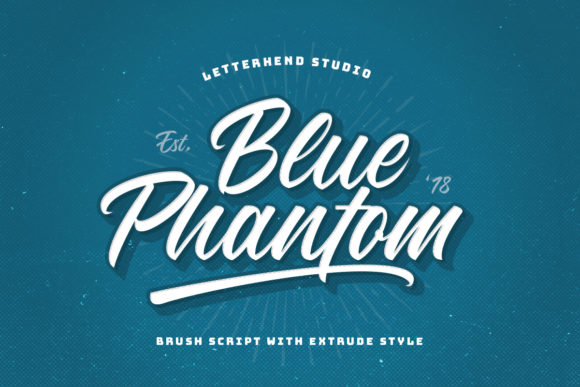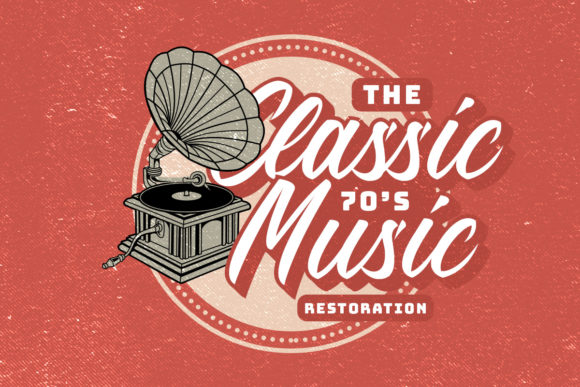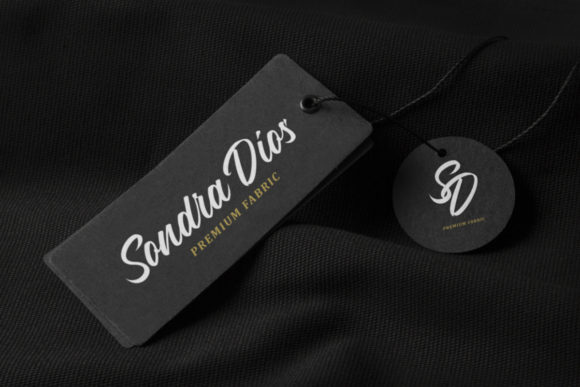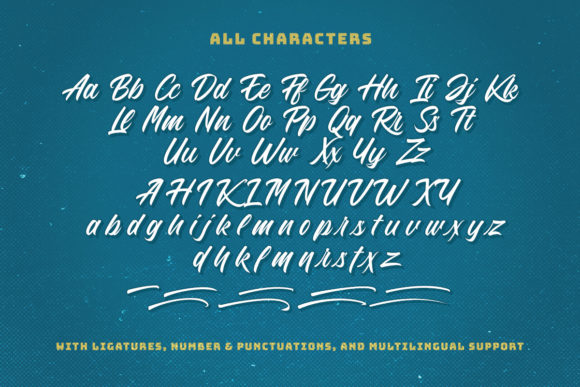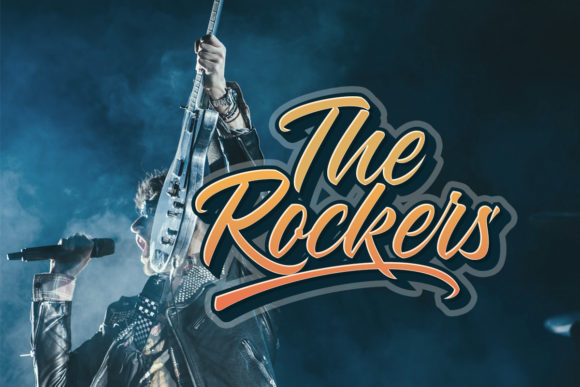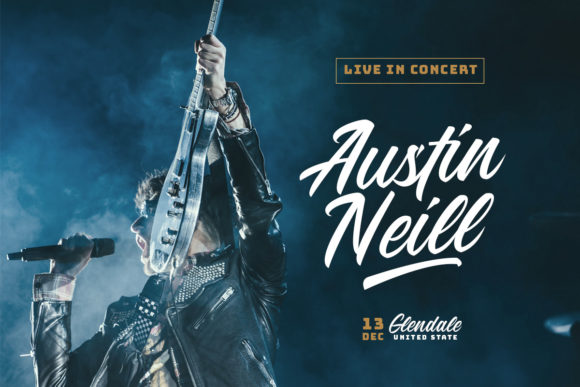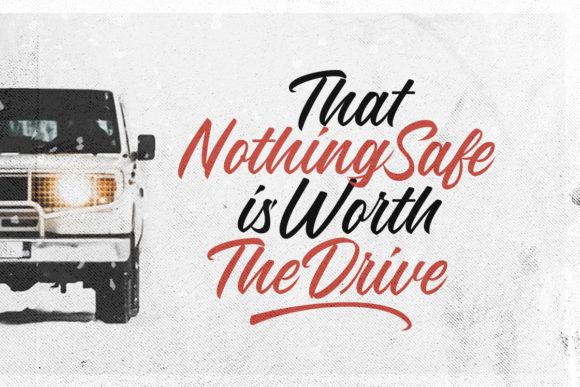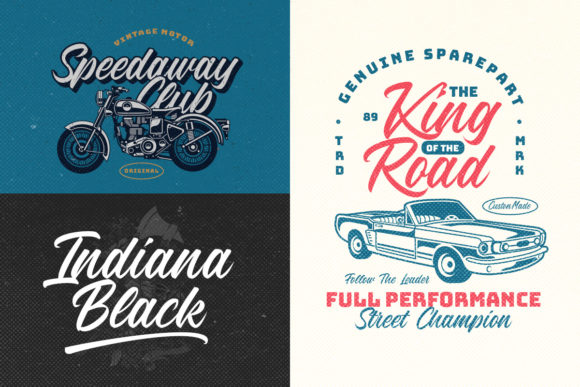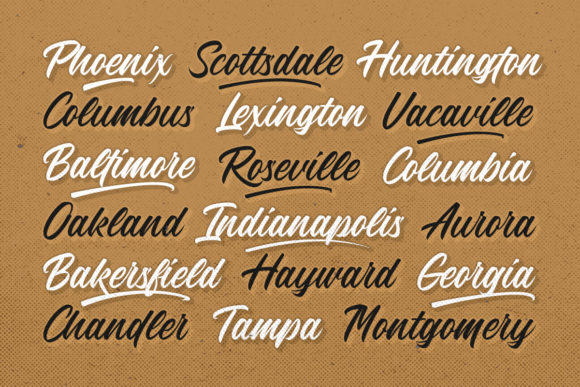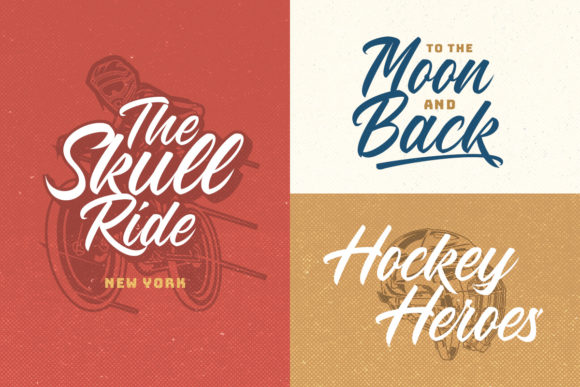
Blue Phantom Font
About Blue Phantom Font
Blue Phantom is a carefully handmade script that radiates style. It feels classy and modern, and slightly nostalgic!